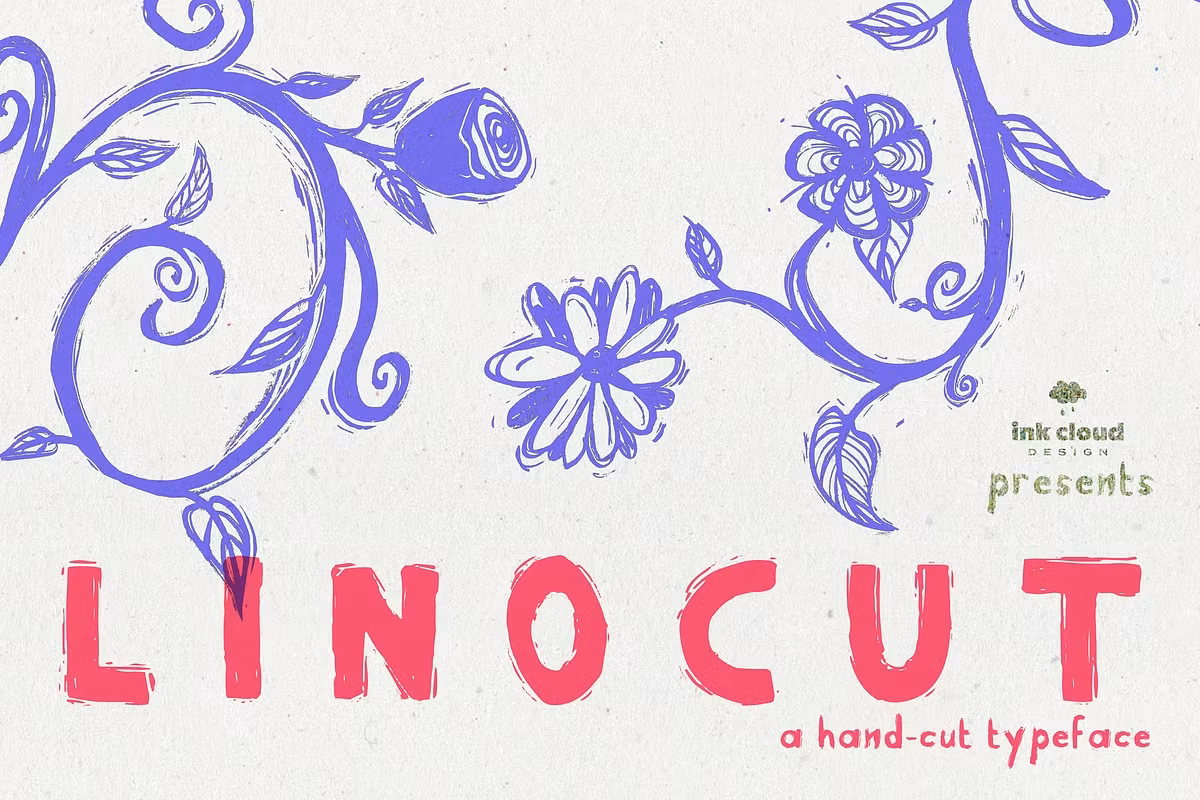
Linocut Handmade Script Font Kid Free Download
Linocut Handmade Script Font Kid Free Download is a fun and playful handwritten typeface designed with kids in mind. Featuring bold, uneven strokes and a creative, handmade style, this font is perfect for children’s books, educational materials, posters, party invitations, and kid-friendly branding.
Its quirky and charming appearance makes it ideal for designs that need a friendly, approachable feel. Whether you’re creating artwork for a toy brand, designing a fun event flyer, or crafting playful social media graphics, Linocut Handmade Script Font Kid Free Download adds a unique and creative touch to every project.